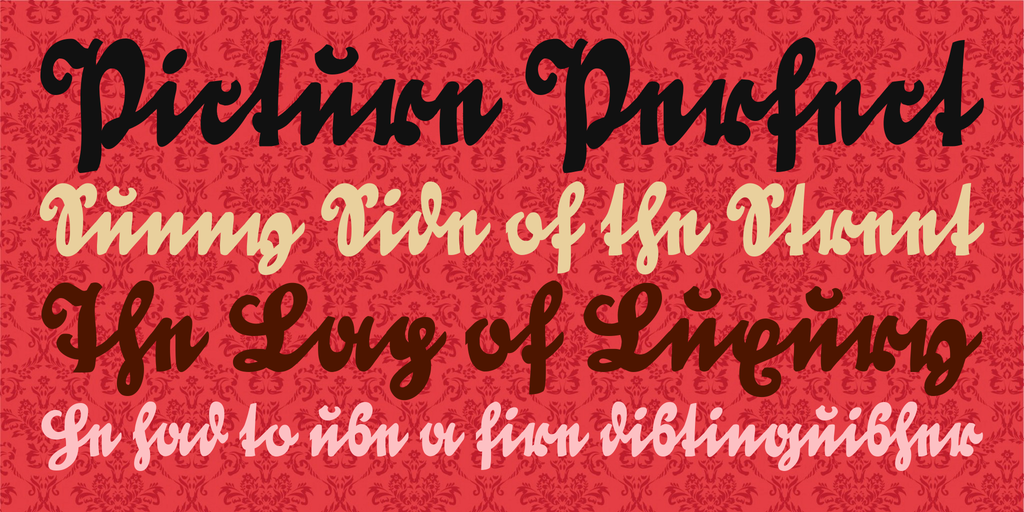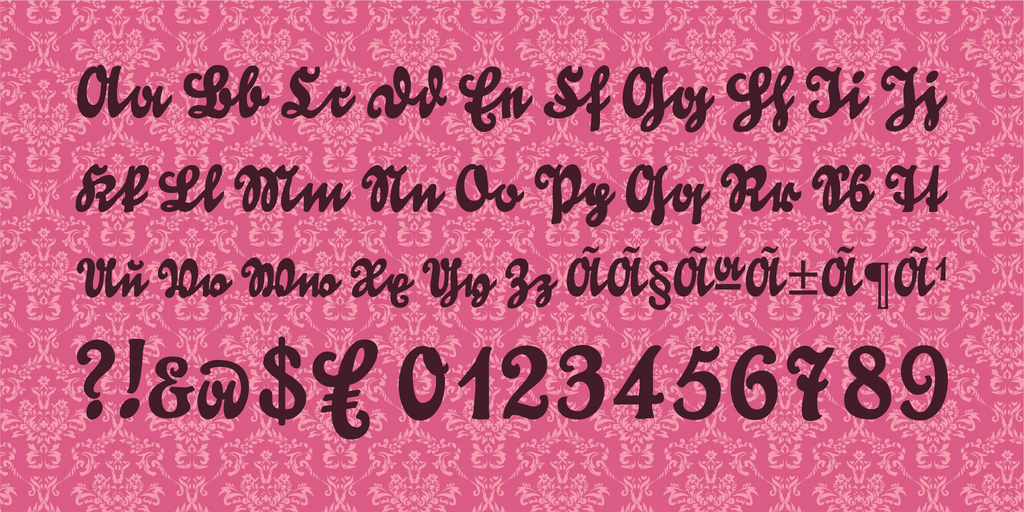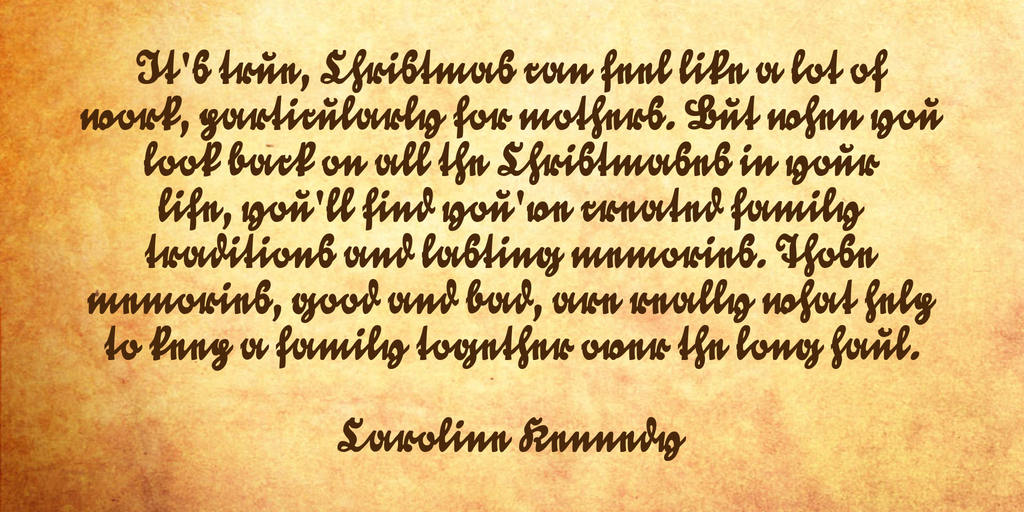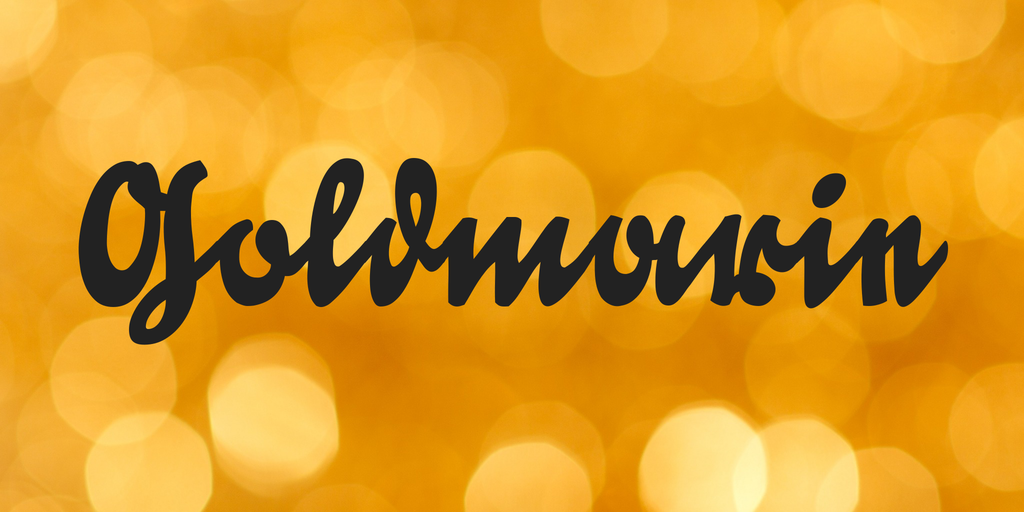
Translation of the original German description: It was the early 1930s, a wild time of upheaval that ultimately led to the dictatorship in Germany, but for many it came as a bulwark against the chaos. During this time some interesting advertising letterings were created, which were developed from the German kurrent. The lettering was quite nice, but the name was accordingly sappy for the time. So when I modeled this font, I I was looking for a more appropriate name from today’s perspective. I have received a lot of suggestions, and the winner was “Goldmarie”. Please donate if you like the font!